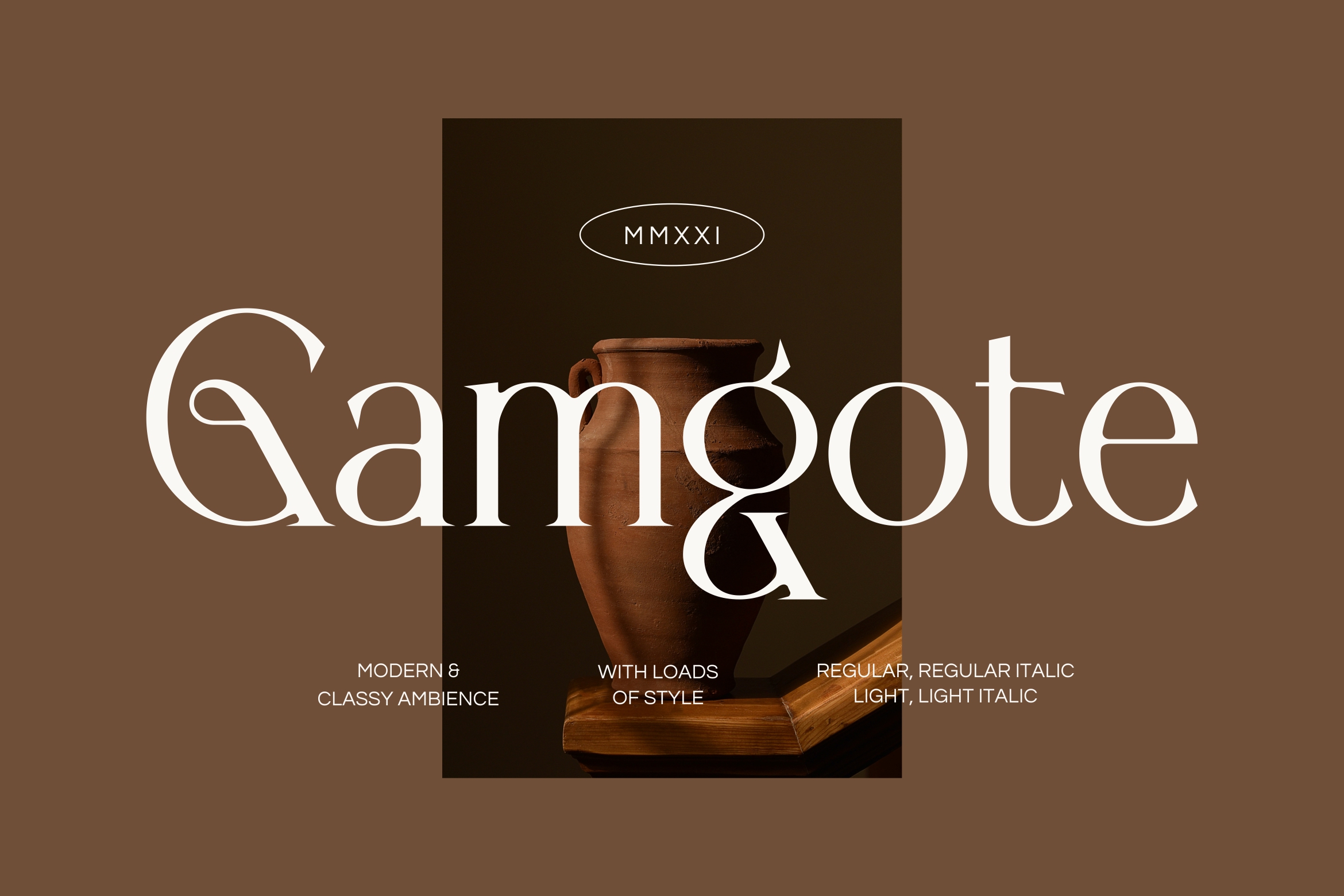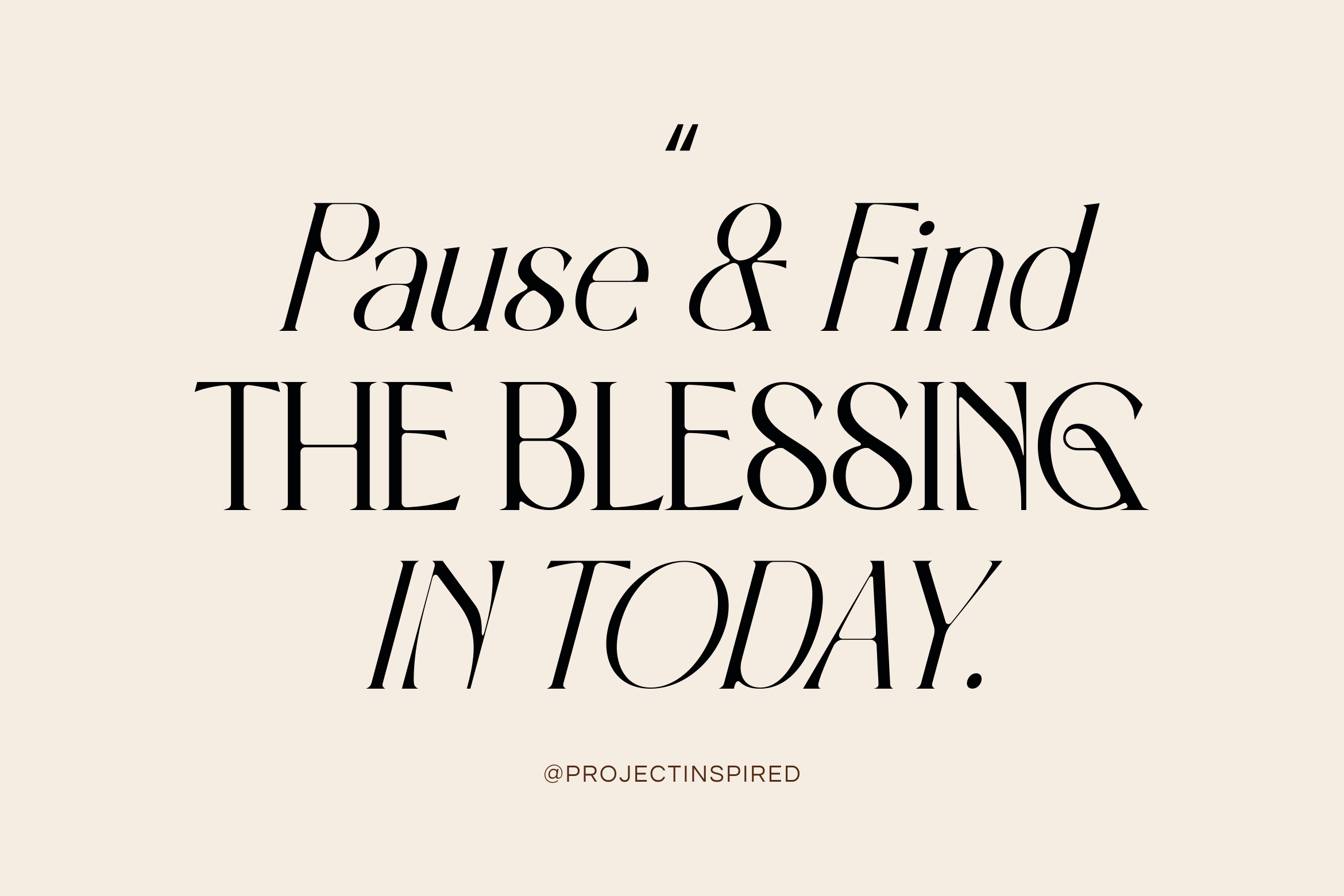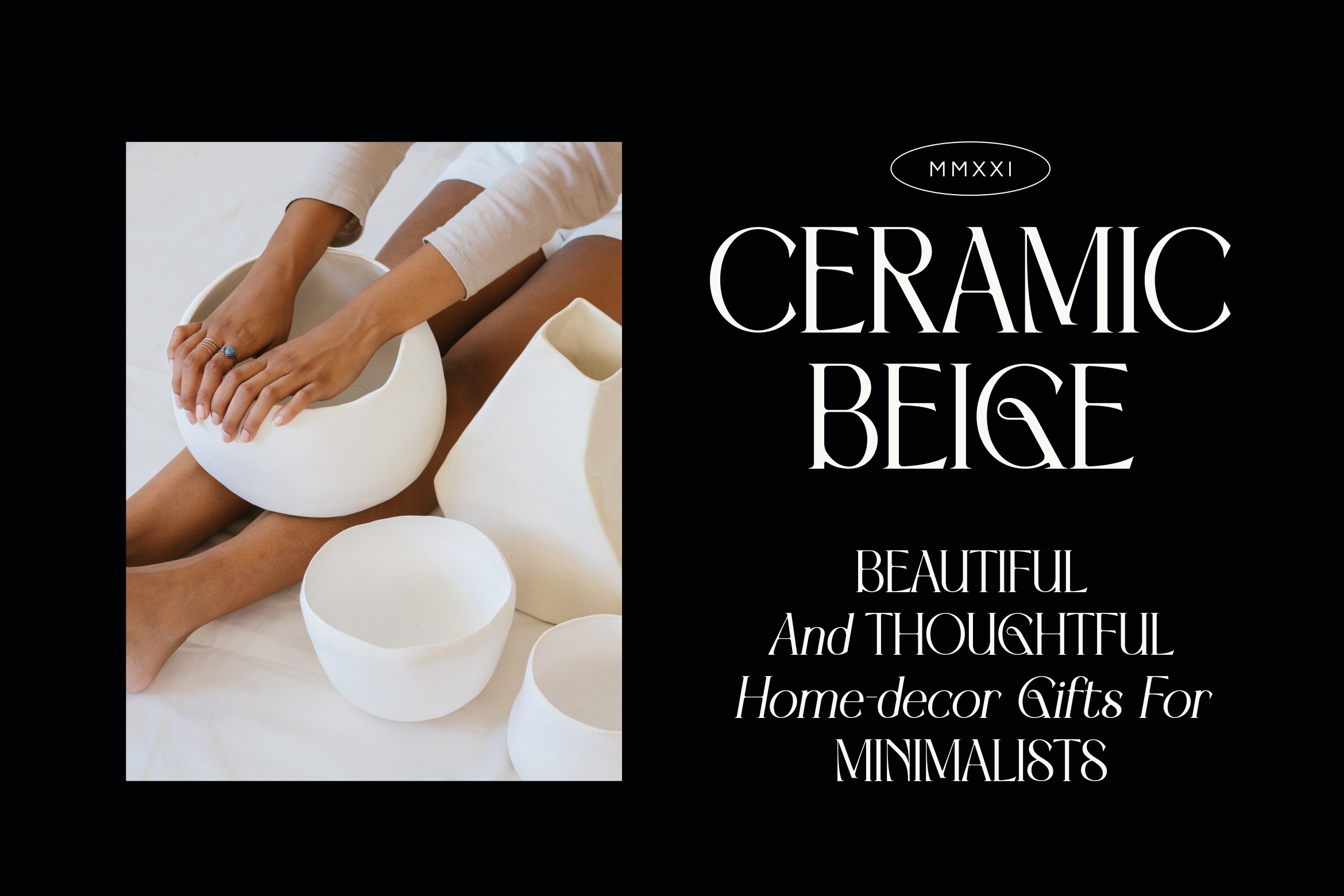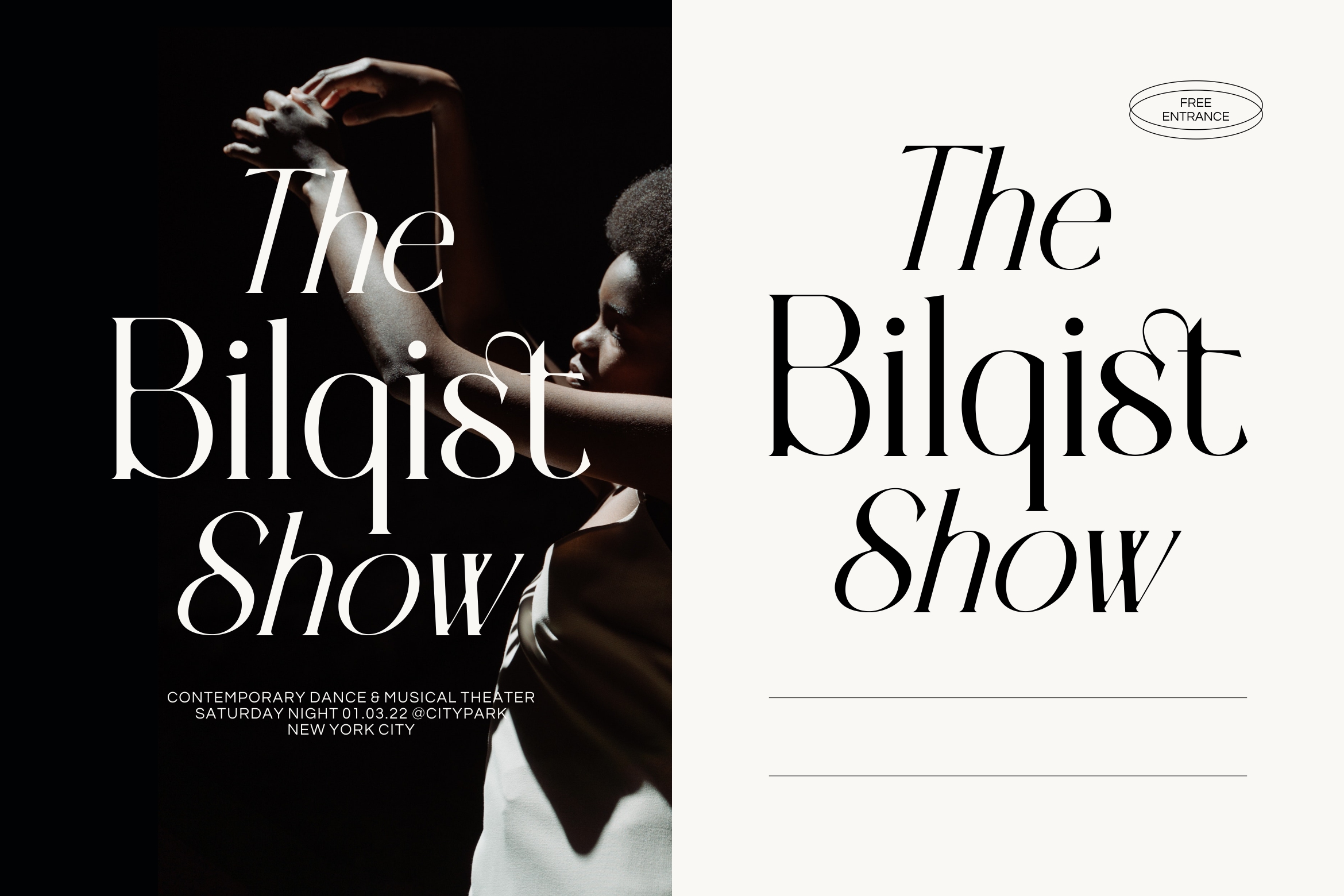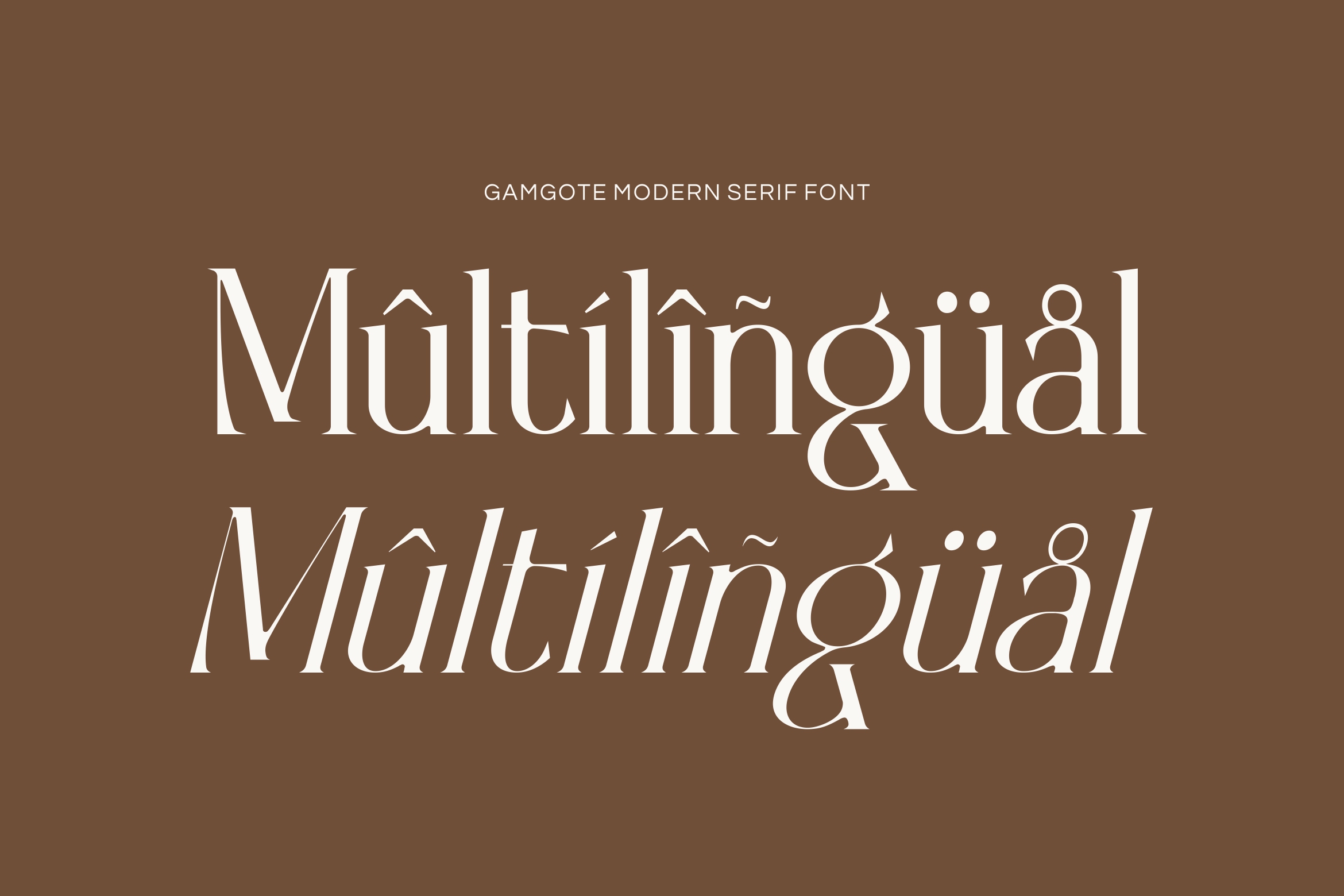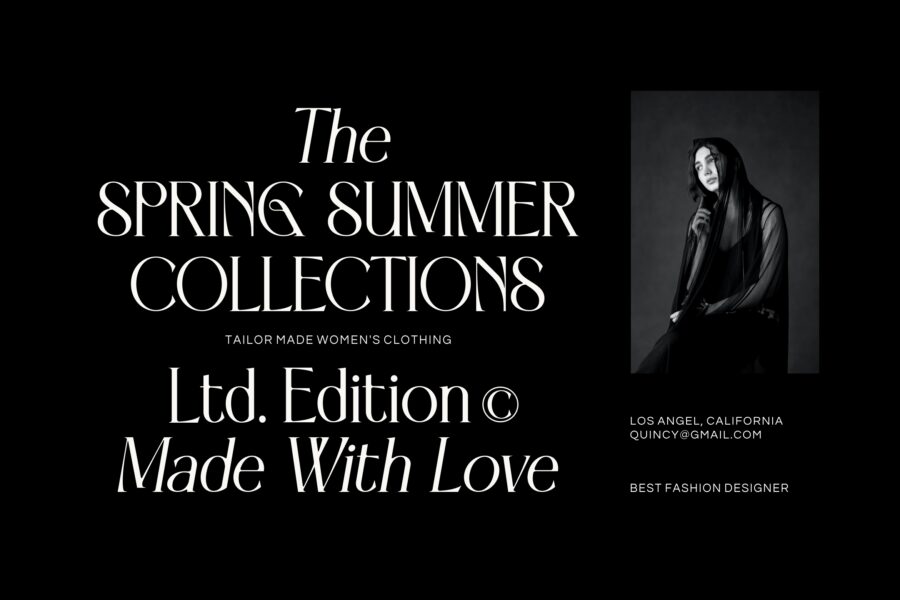
Gamgote
Gamgote is a modern and elegant serif typeface that exudes a sense of class and sophistication. It is characterized by a high contrast between its thick and thin strokes, giving it a sharp and refined appearance. Many of the letterforms feature unique and stylish details, including distinctive ligatures and graceful swashes, particularly noticeable in characters like the lowercase ‘g’ and uppercase ‘R’. The overall design feels contemporary yet timeless, making it a powerful choice for creating a memorable and upscale aesthetic. The font family includes various weights such as regular and light, along with corresponding italic styles, providing versatility for different design hierarchies.
This typeface is exceptionally well-suited for high-impact applications where a touch of luxury is desired. As seen in the examples, Gamgote shines in headlines for magazines, posters for cultural events, and branding for premium products like fashion and home decor. Its inherent elegance makes it a perfect fit for logos, invitations, editorial layouts, and any design project aiming for a clean, minimalist, and stylish feel. With its support for multilingual characters, Gamgote proves to be a versatile and practical choice for designers working on international brands and publications.